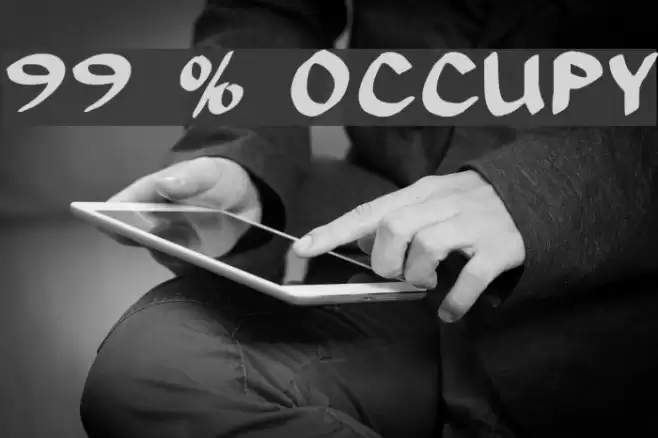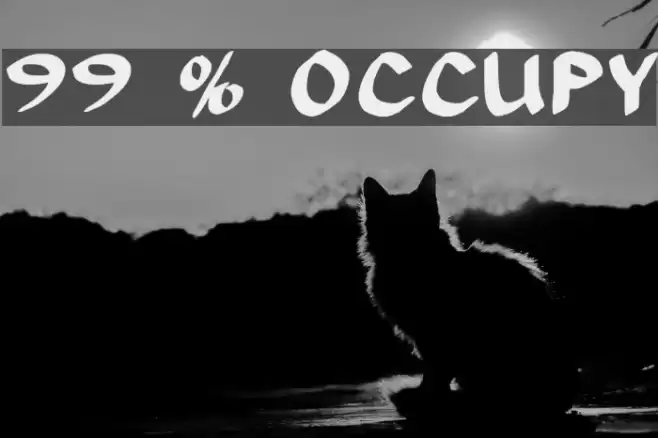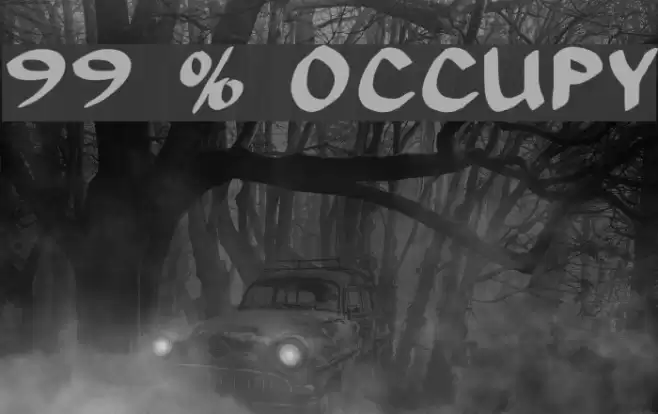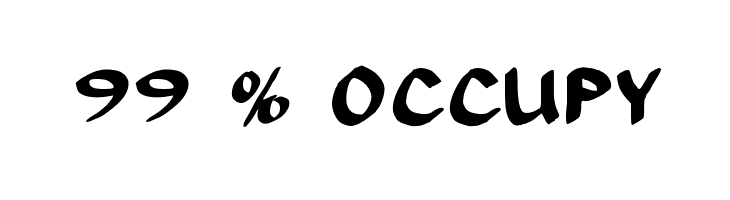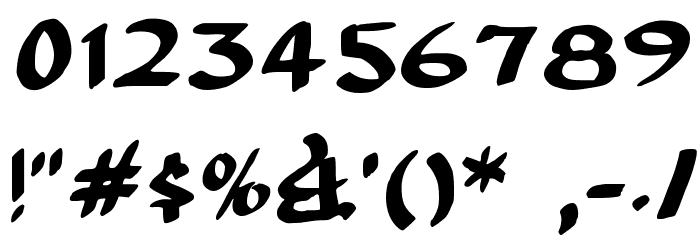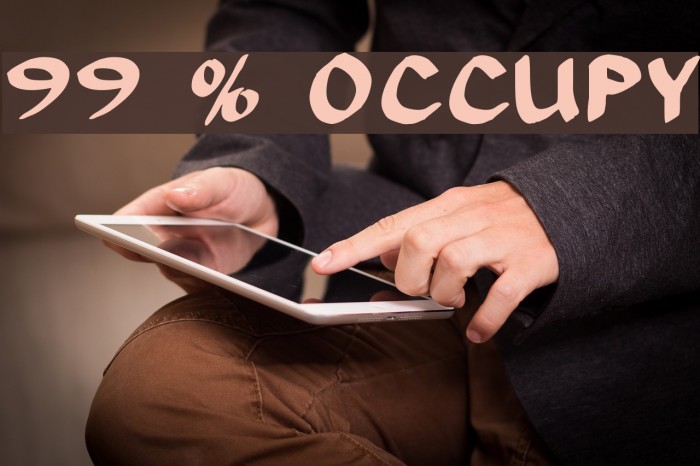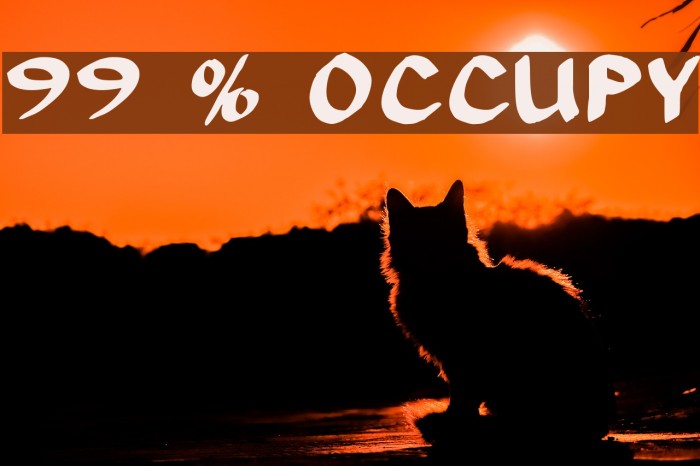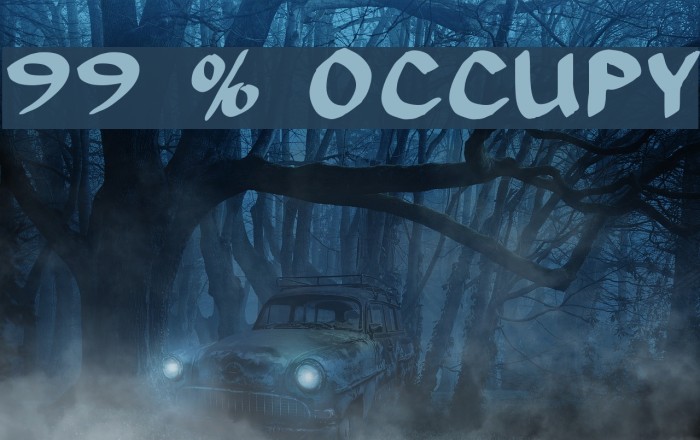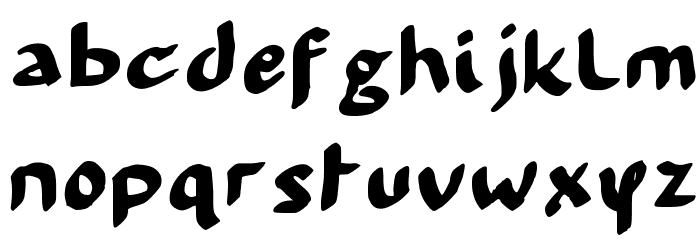
99 % OCCUPY Font
99 % OCCUPY Description
This font features a bold and dynamic style with a hand-drawn appearance. The characters are slightly irregular, giving it a casual and artistic feel. The strokes are thick and rounded, contributing to a playful and approachable aesthetic. The uppercase and lowercase letters maintain a consistent style, while the numbers and special characters blend seamlessly with the overall design. This font is well-suited for projects that require a personal touch or a creative flair.
A bold, hand-drawn font with a playful and artistic style from Handwritten fonts.